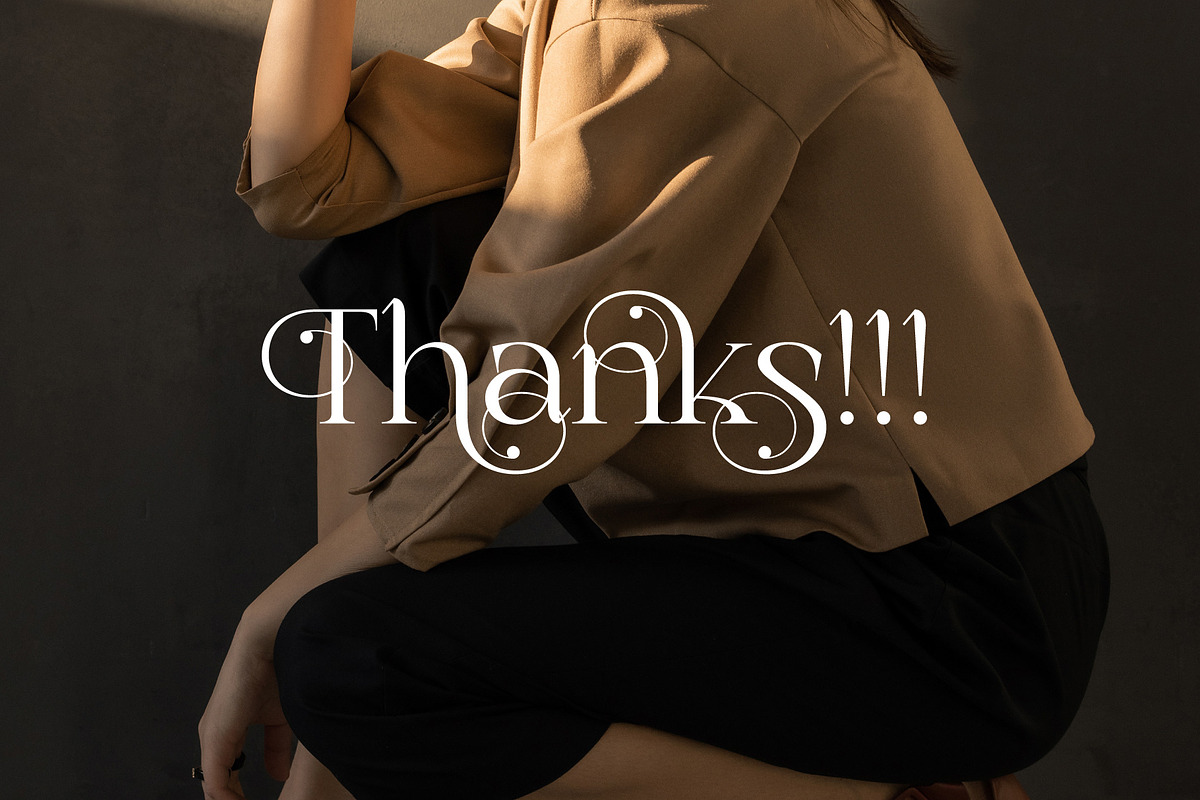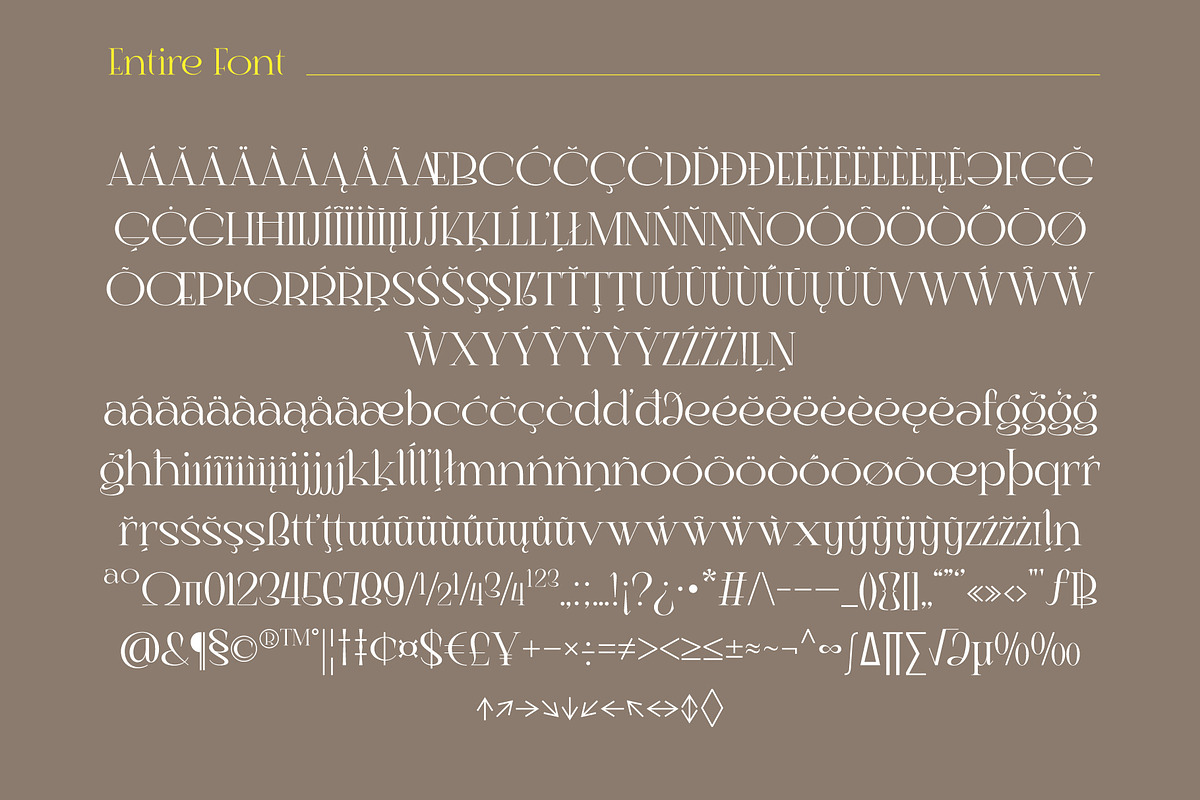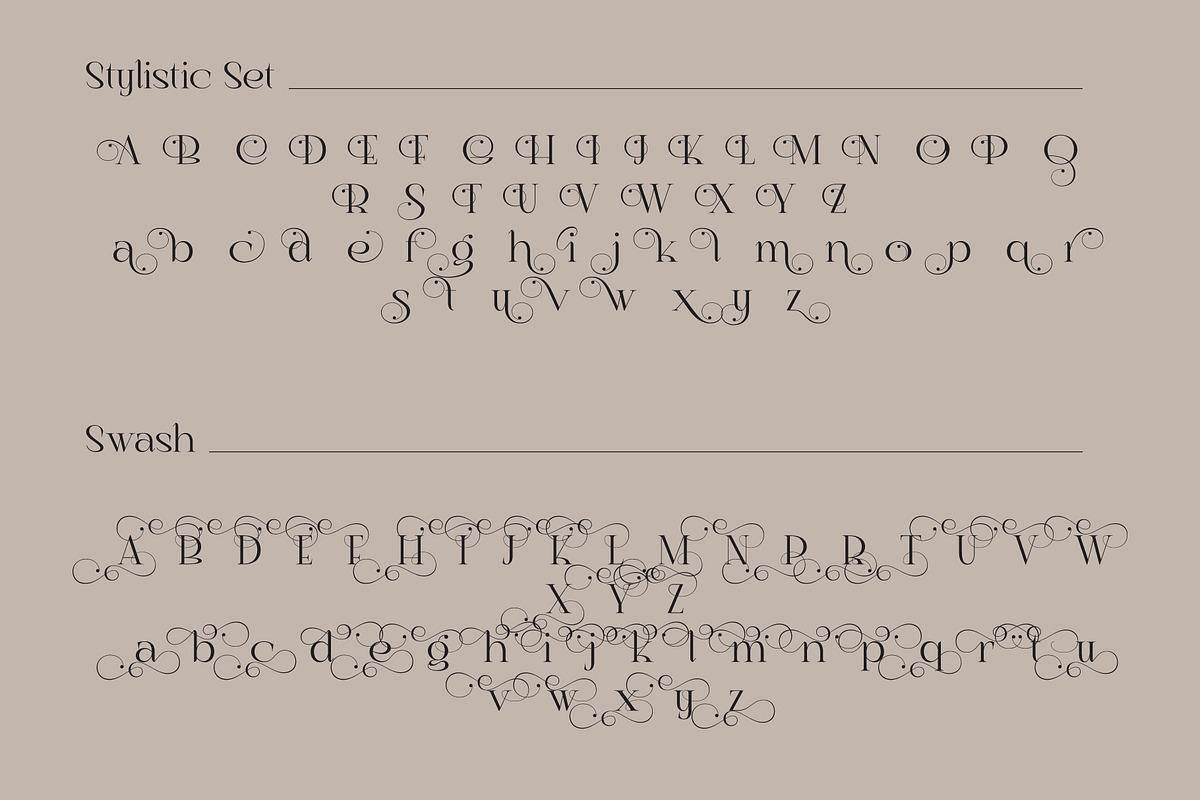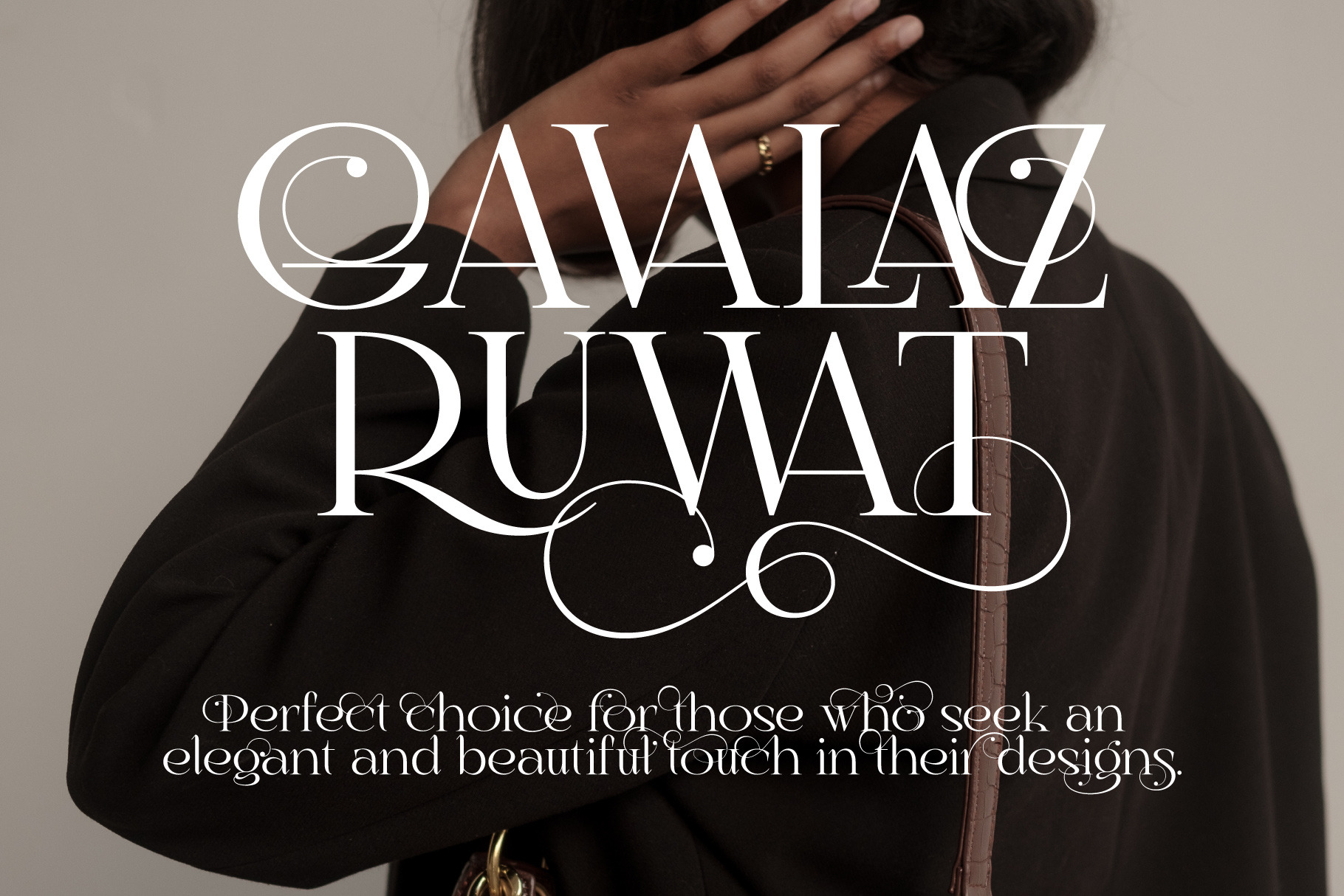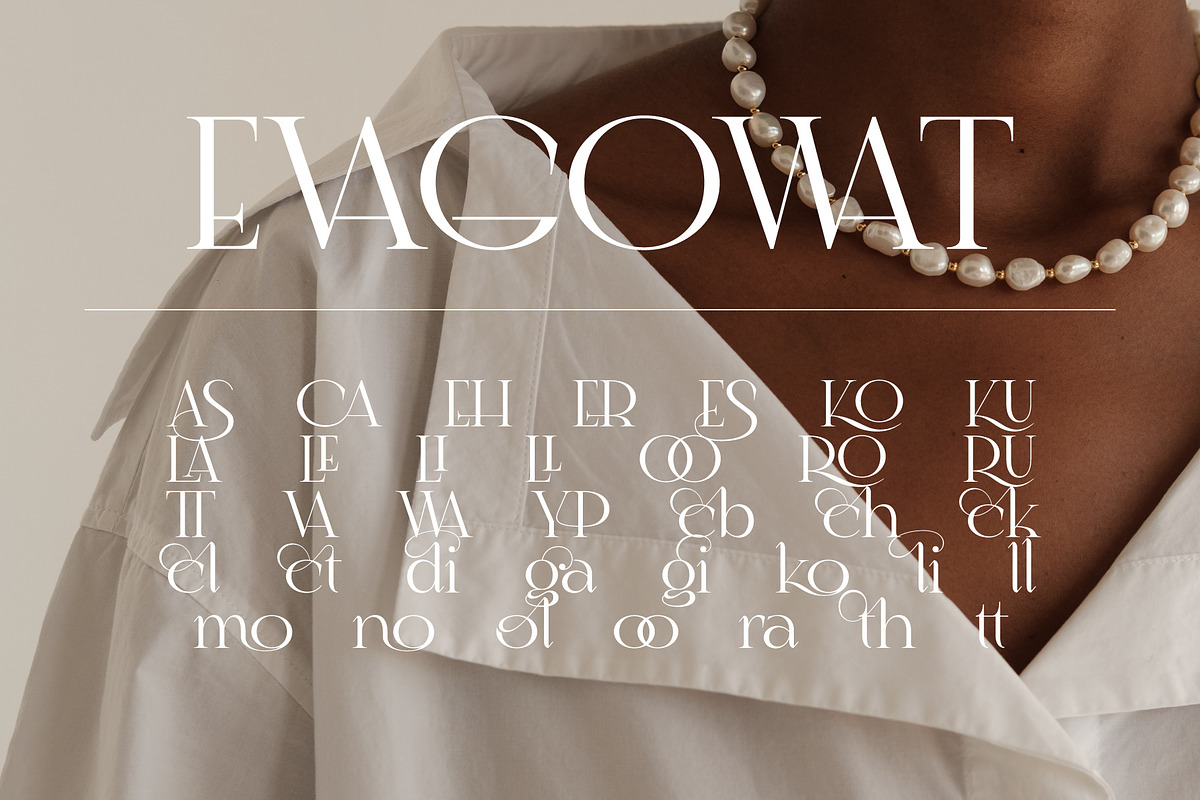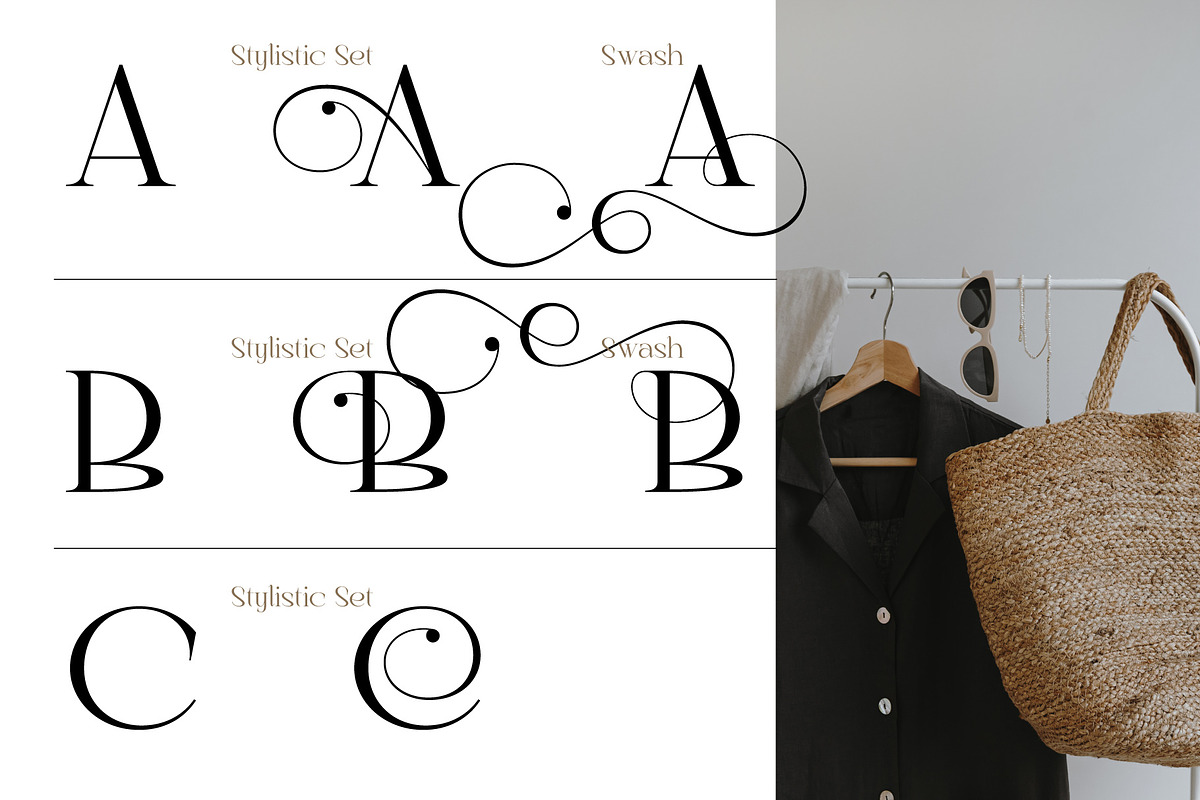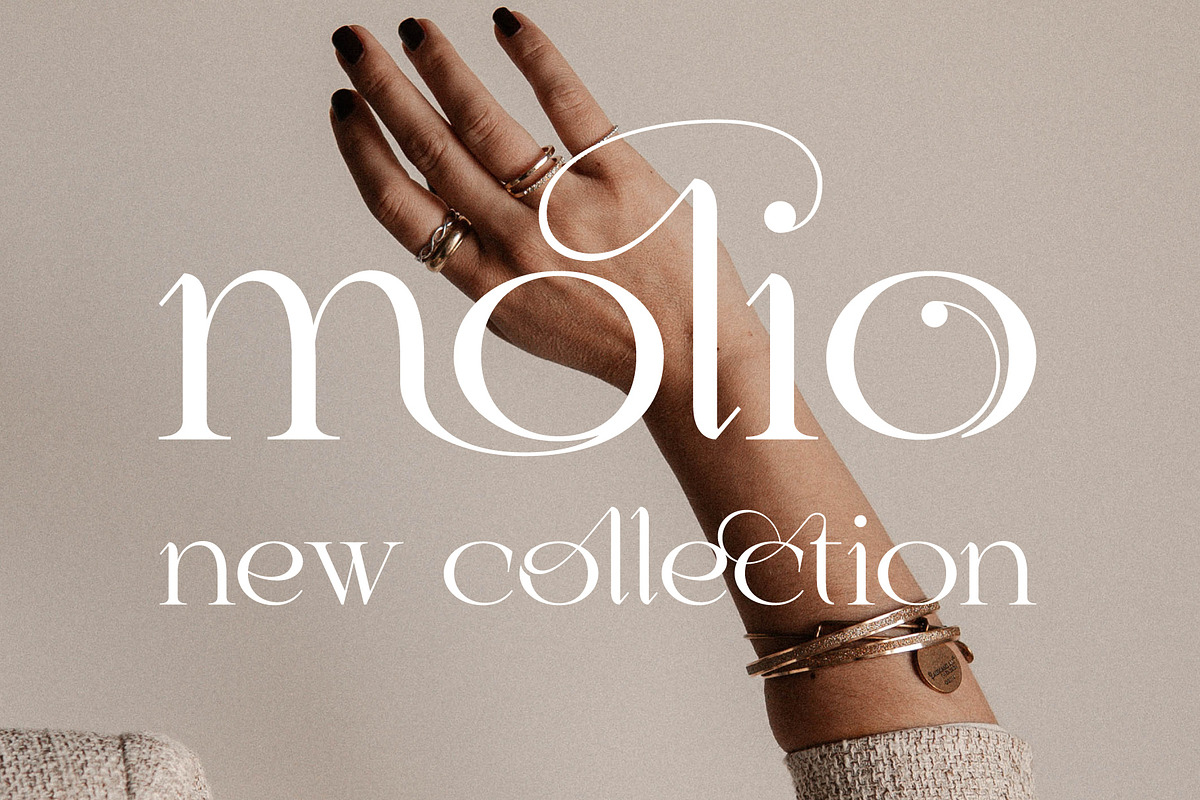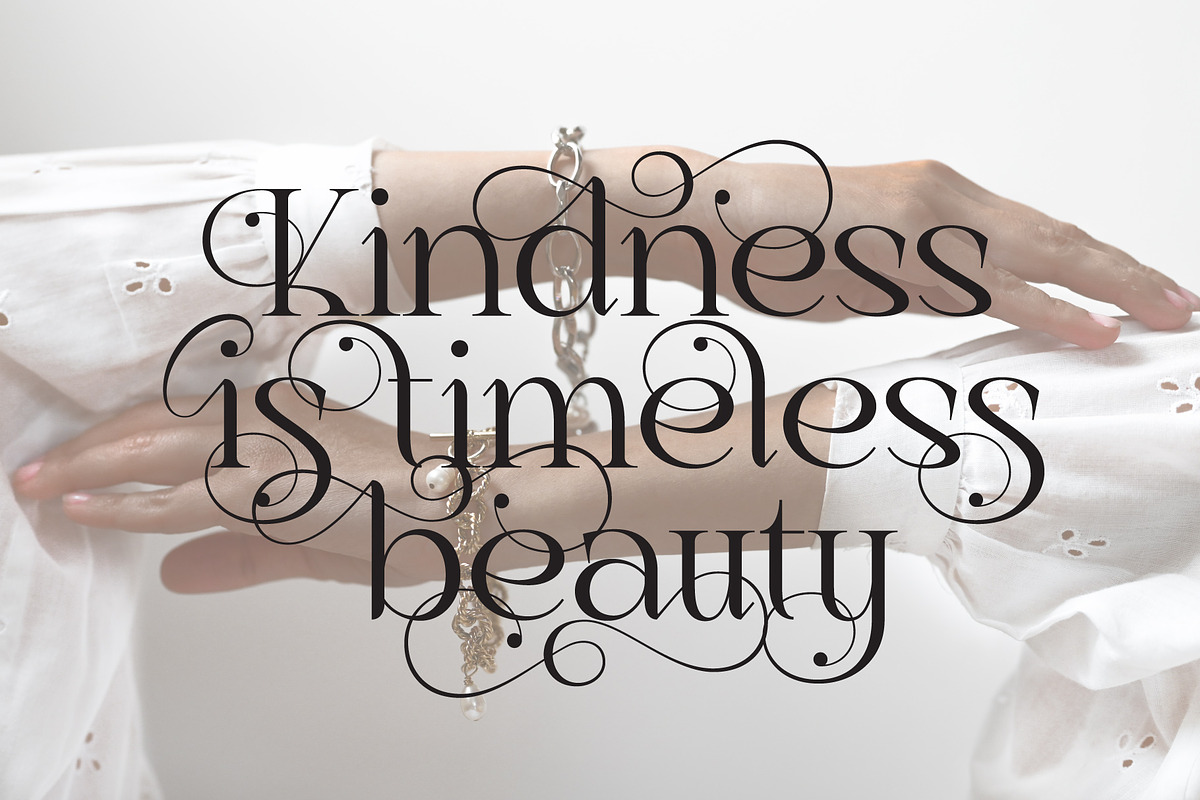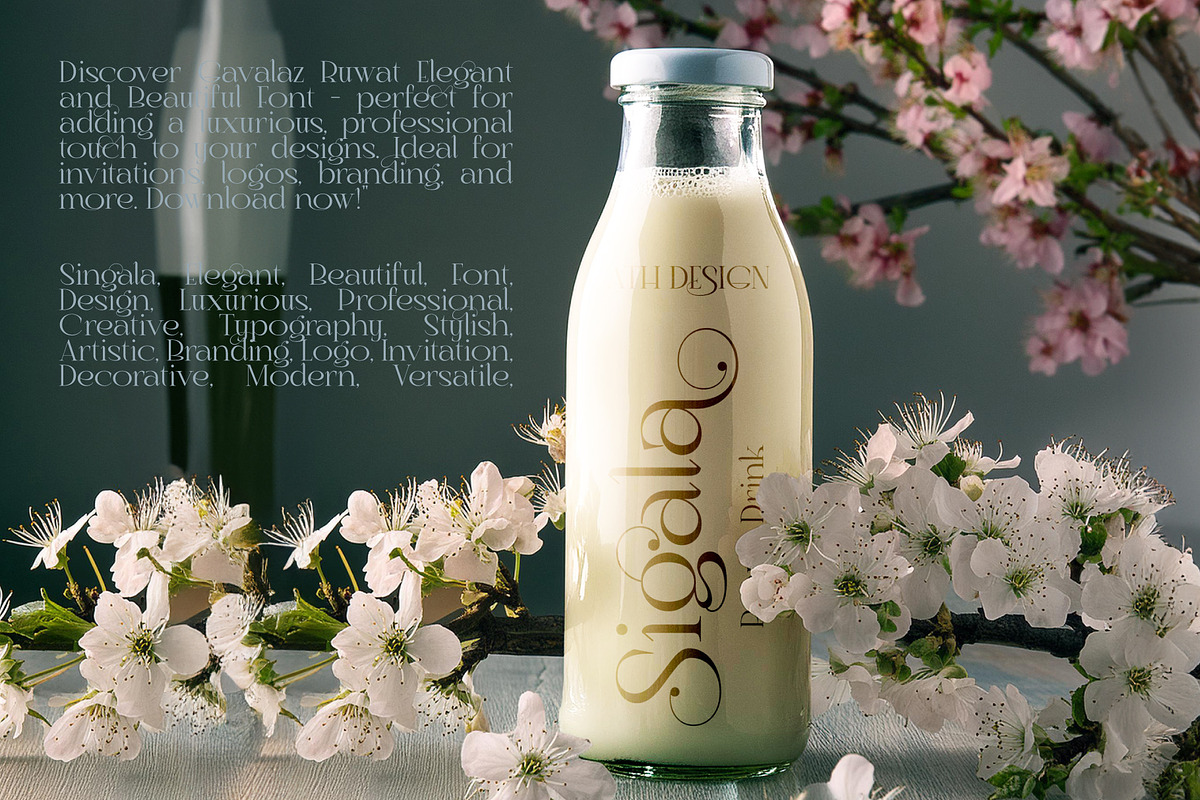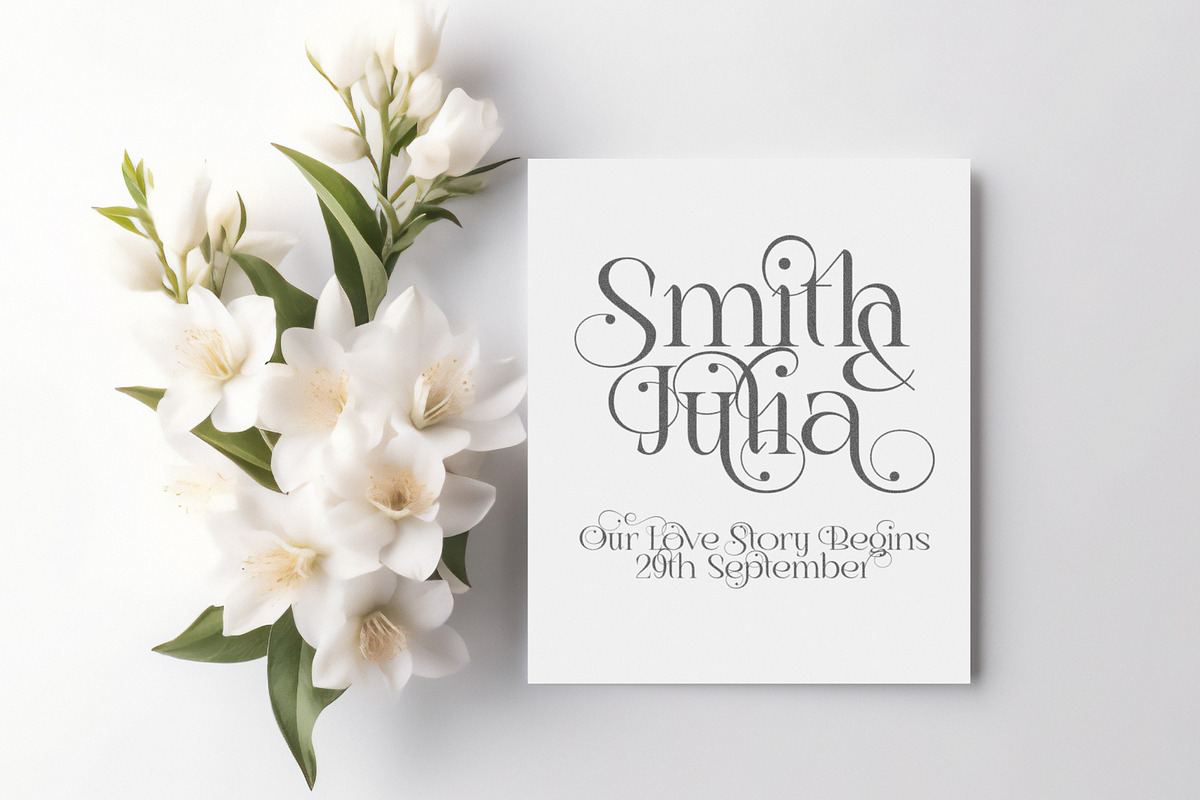
Gavalaz Ruwat Elegant Font
Gavalaz Ruwat Elegant and Beautiful Font Elegant Touch for Your Creations
Gavalaz Ruwat Font is the perfect choice for those who seek an elegant and beautiful touch in their designs. This font is crafted with fine details and outstanding grace, making every letter look mesmerizing and exquisite.
With Gavalaz Ruwat Font, you’re not just getting a font, but a tool to enhance the aesthetics and visual appeal of every creation. The beauty and elegance brought by this font will make your designs stand out and leave a lasting impression.